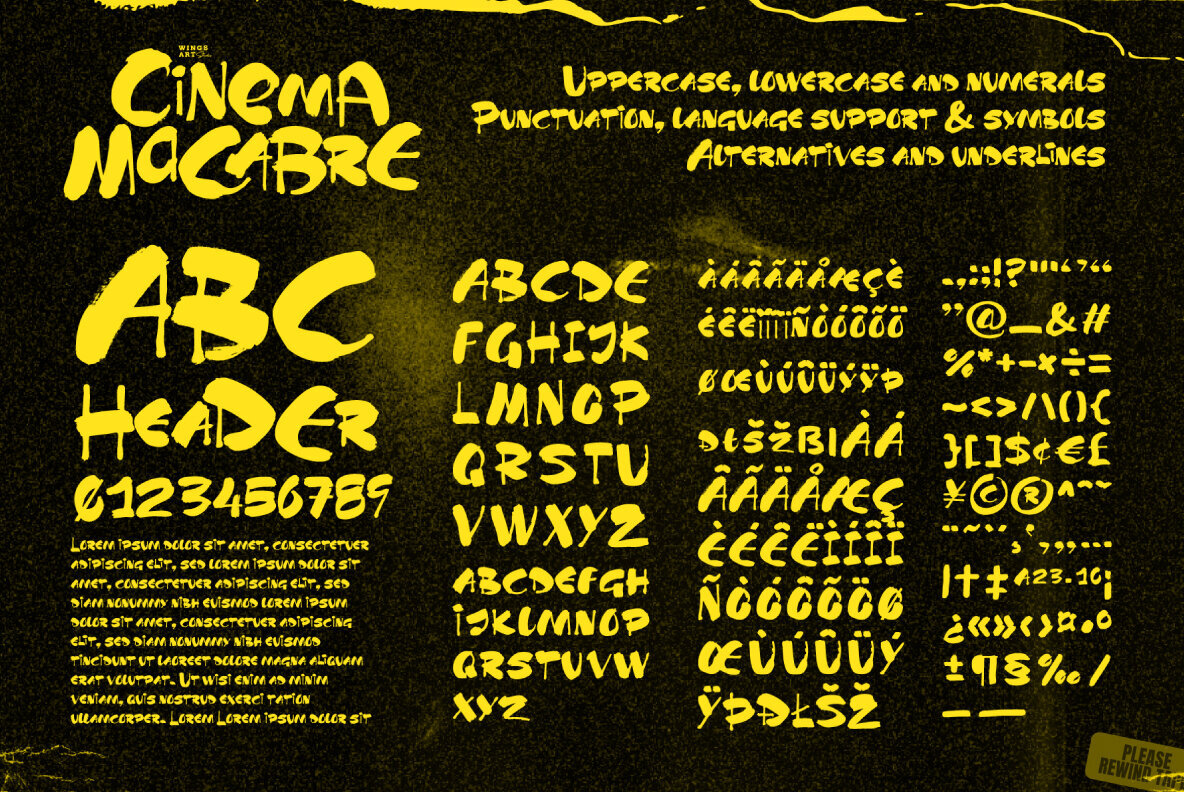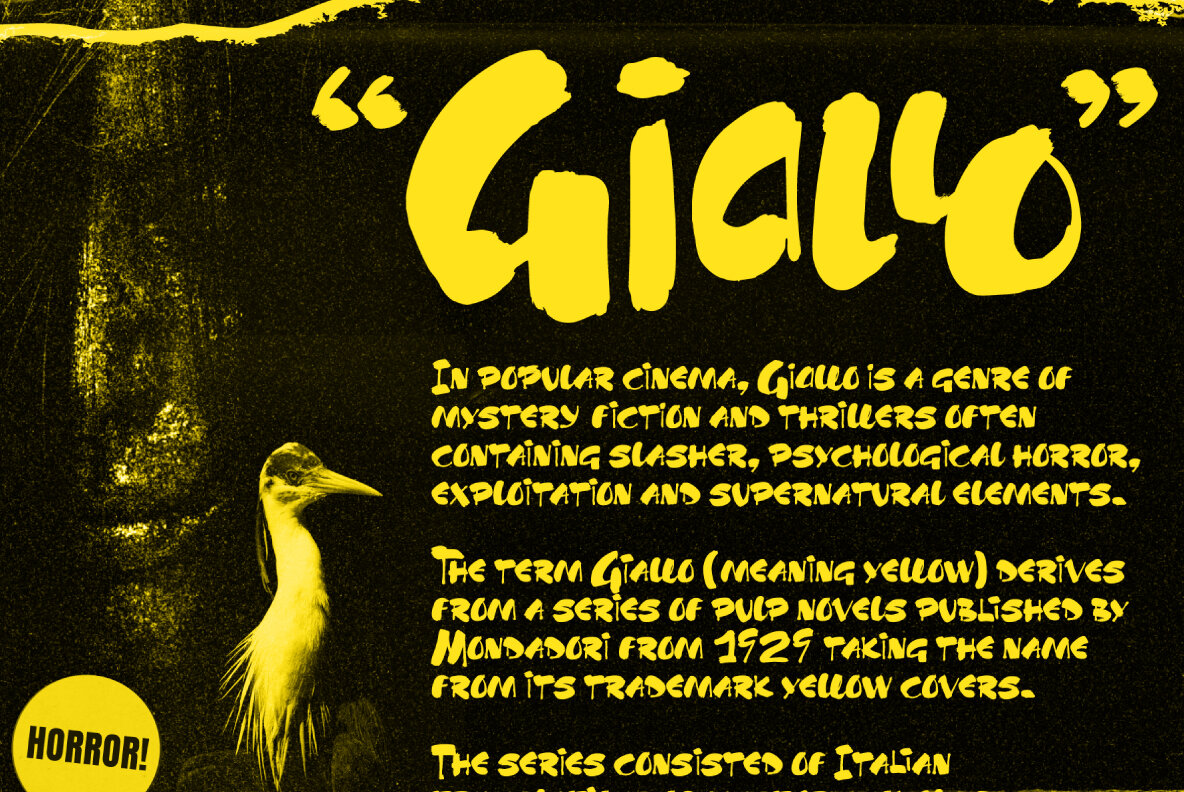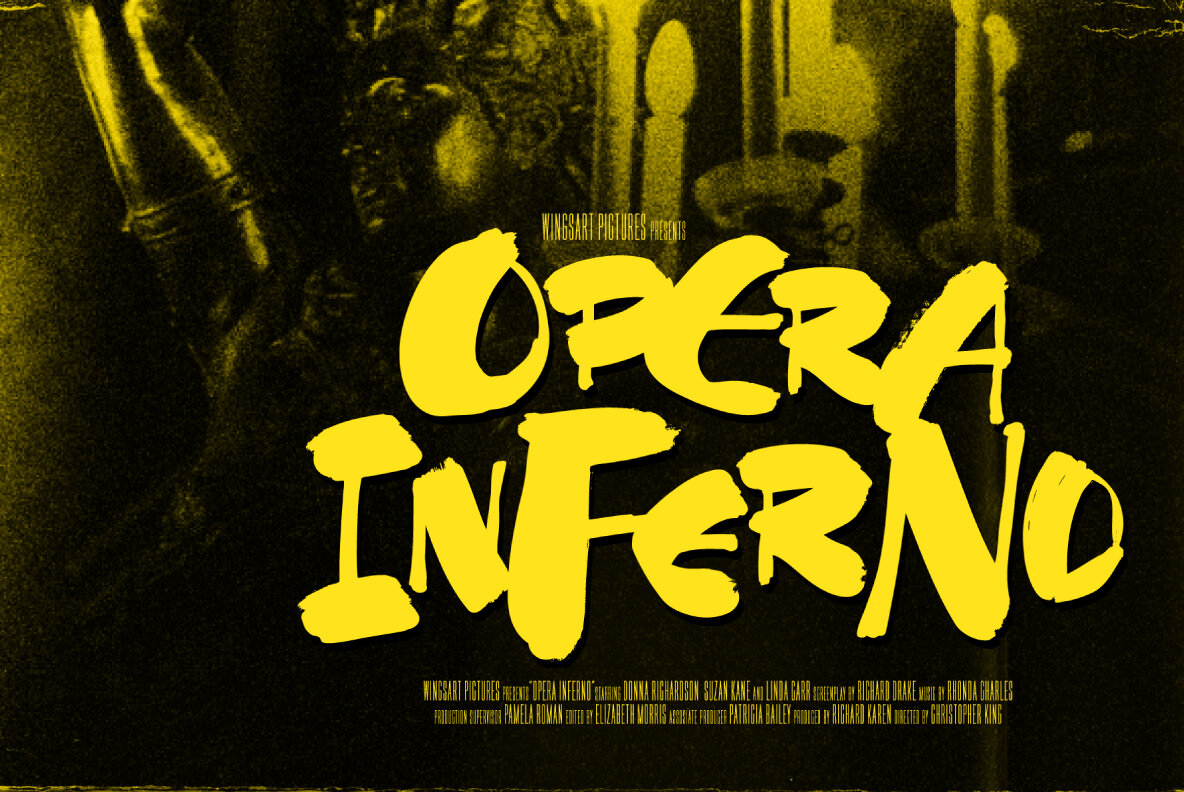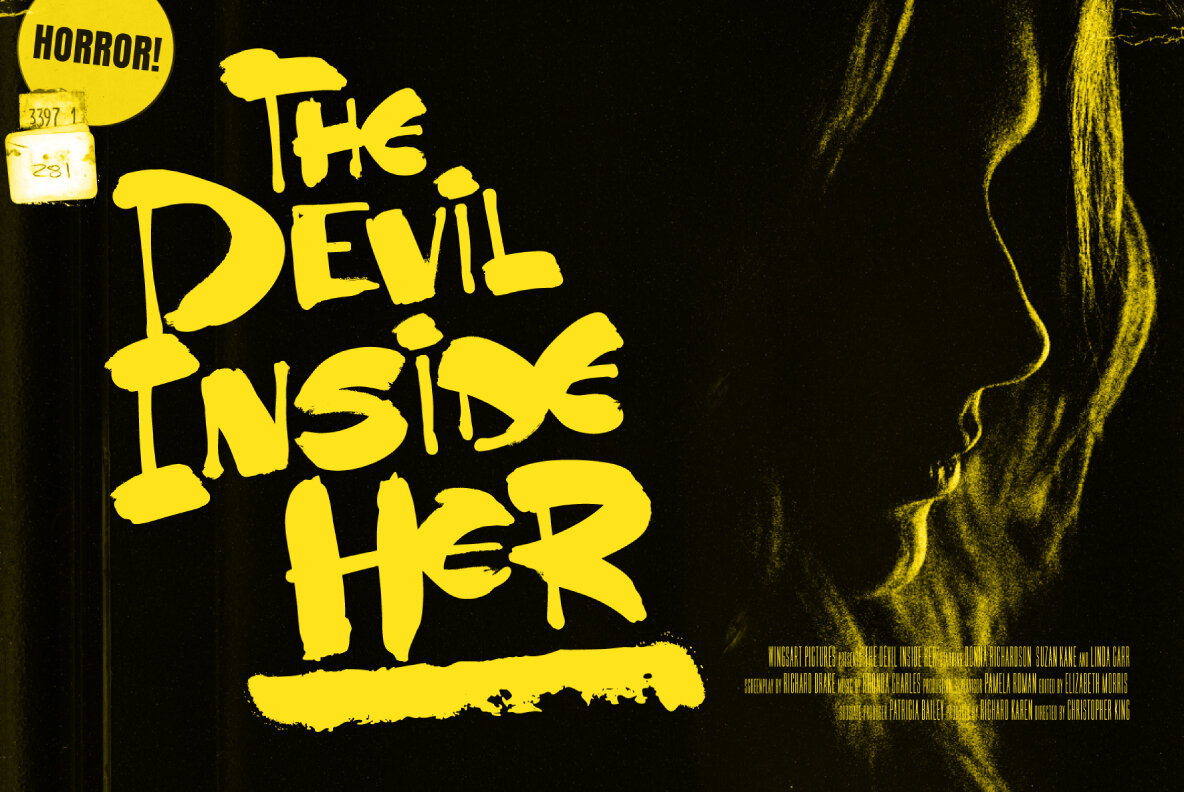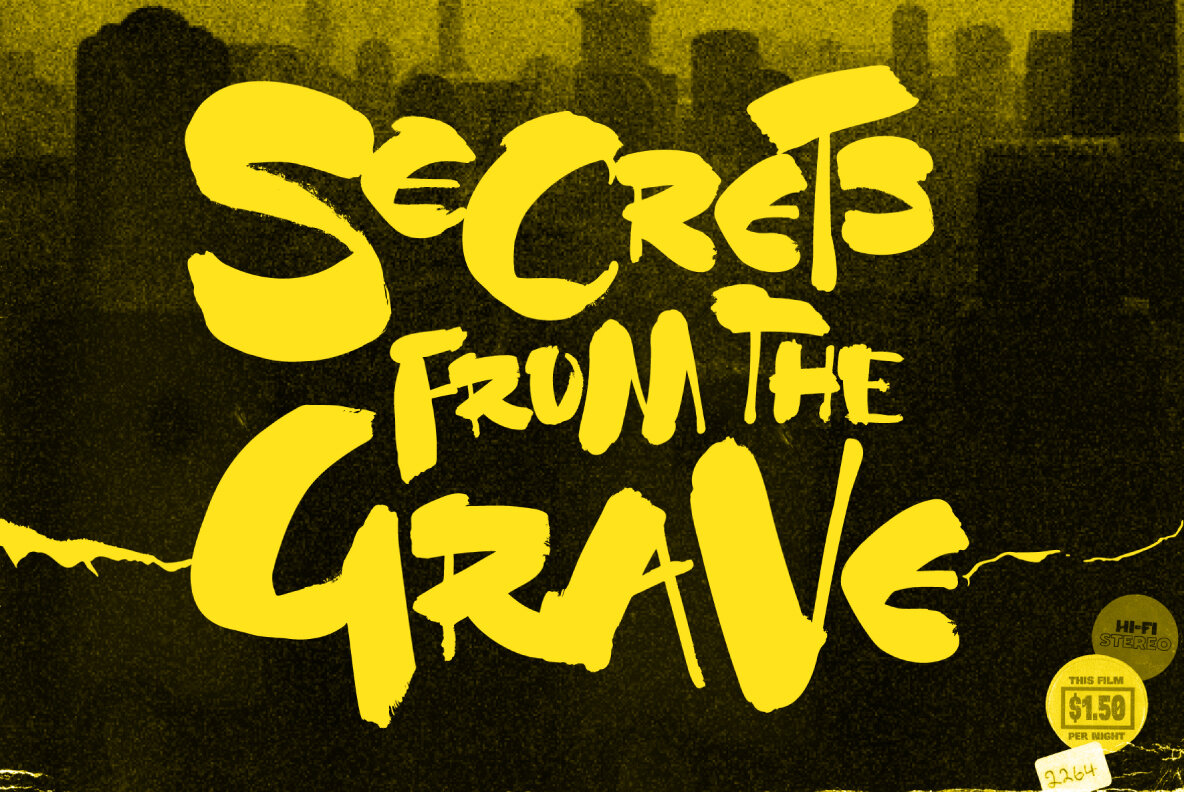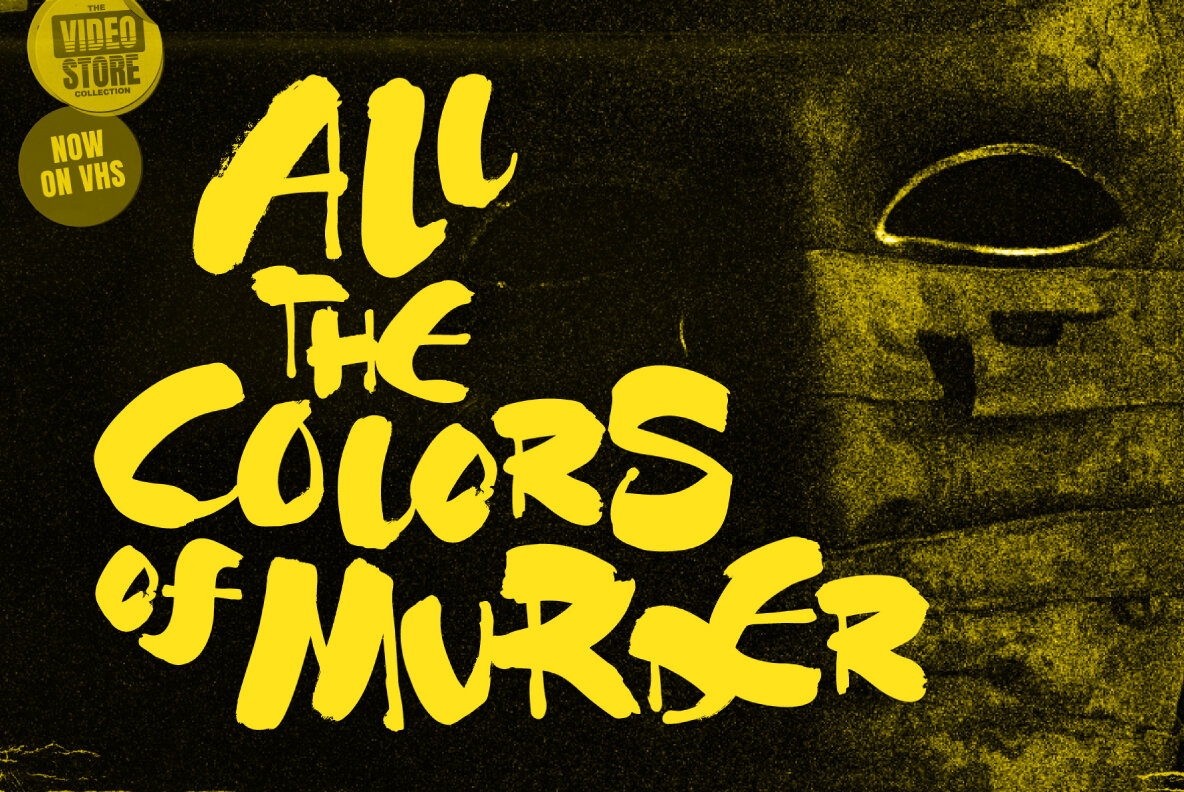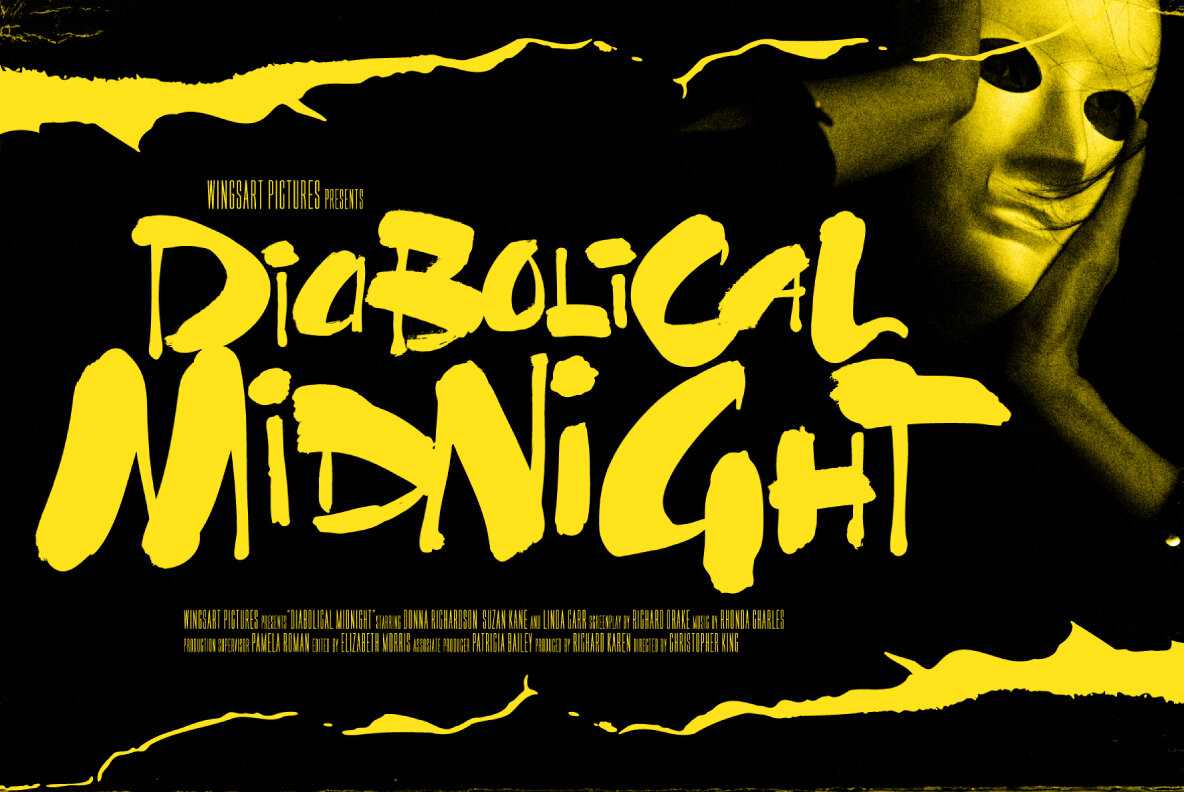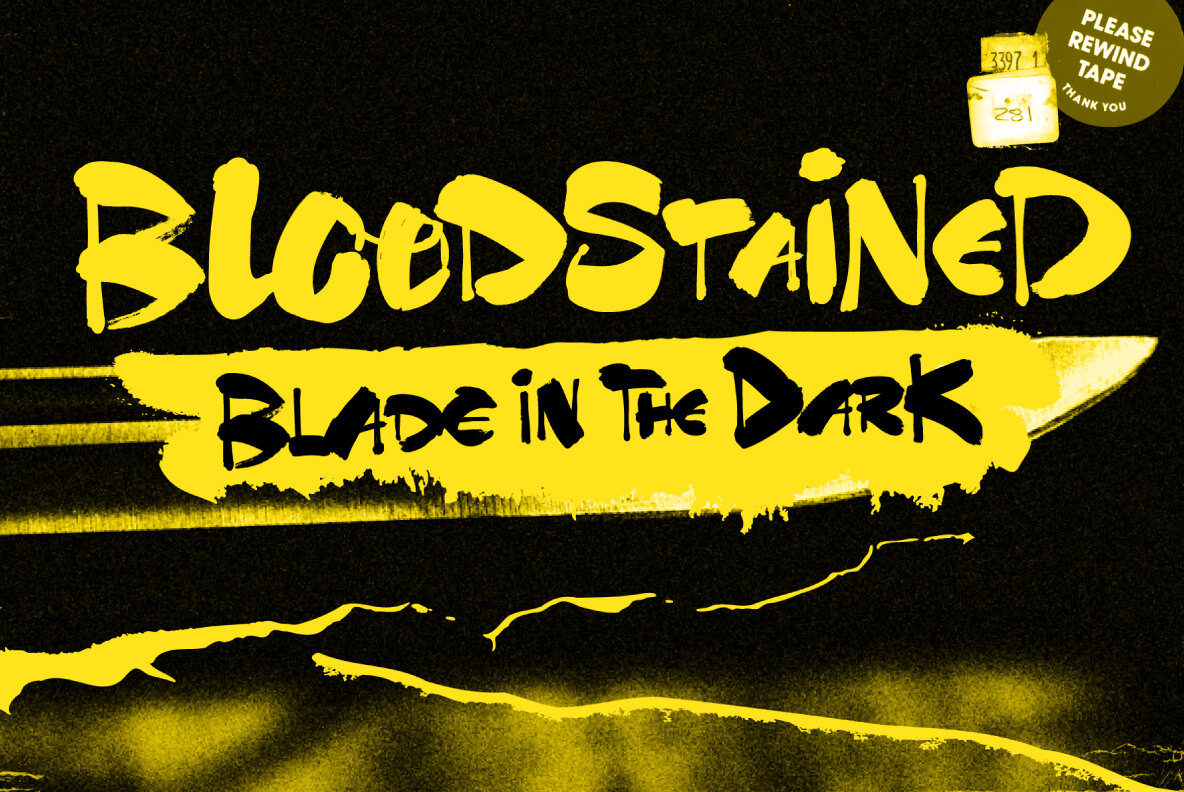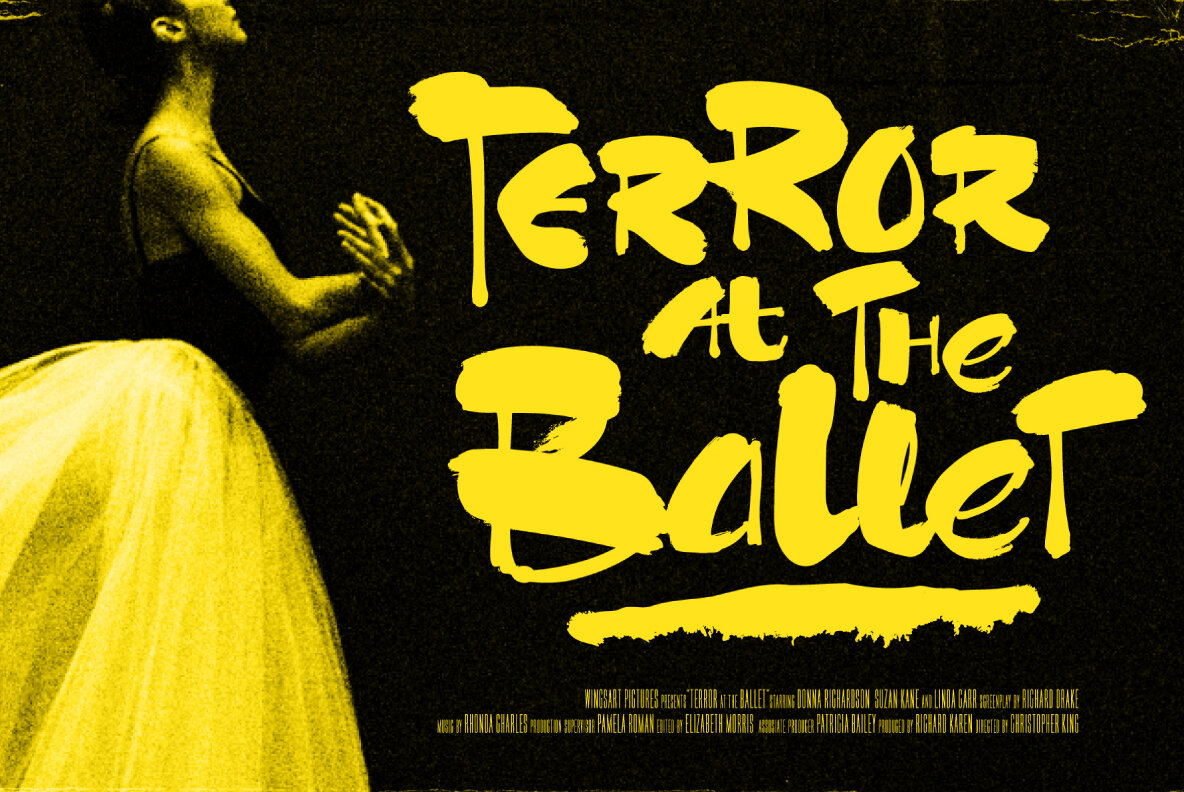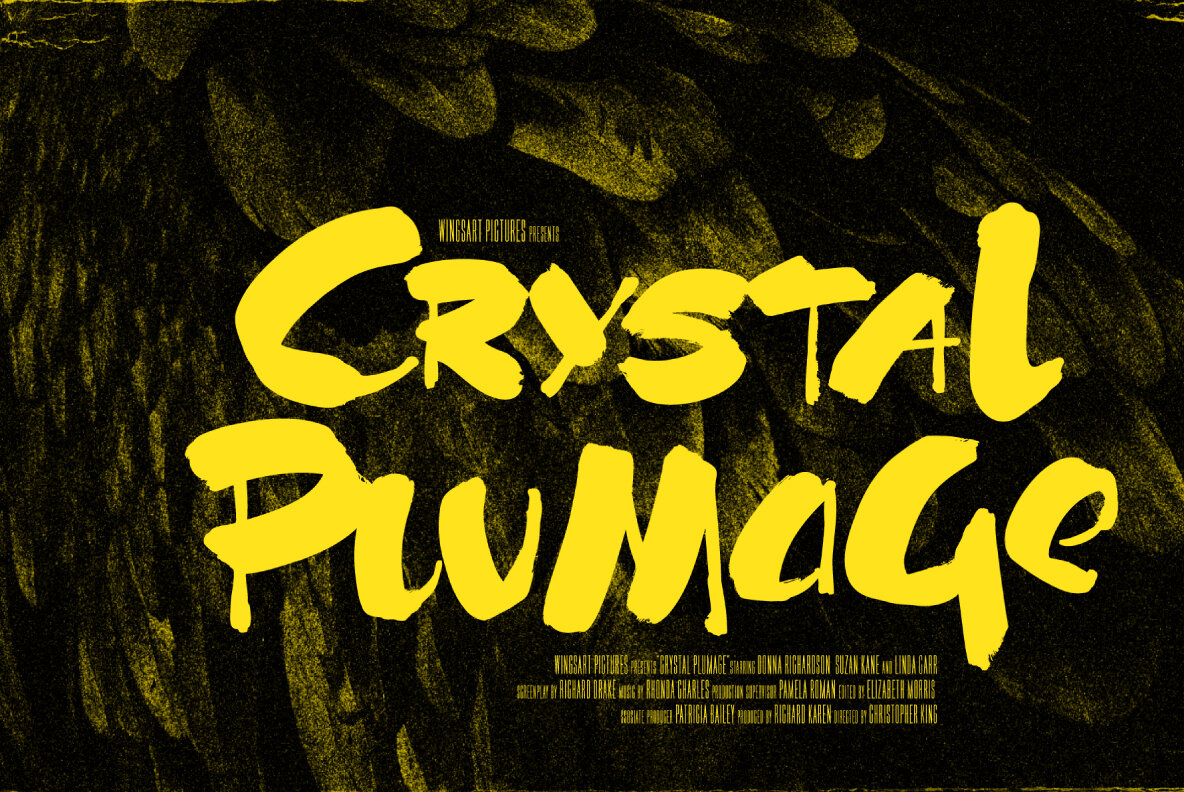
Cinema Macabre Font
Cinema Macabre Regular
Cinema Macabre Alt 01
Cinema Macabre Alt 02
Cinema Macabre Alt 03
Cinema Macabre Alt 04
Cinema Macabre Alt 05
Cinema Macabre Underlines
A Hand-drawn Display Font for Creating the Most Diabolical Horror Titles
This loose and inky brush font takes its inspiration from the classic Giallo film posters of the 1960s to 1980s - a cult cinematic subgenre beloved for its stylish visuals, haunting soundtracks and exploitation led marketing. It's a devilishly drawn design that aims to capture the feeling of vintage horror, preserving analogue details of old print while remaining versatile enough to work across a variety of digital designs.
The Cinema Macabre font family boasts six fonts, each containing a unique set of uppercase and lowercase characters, as well as numerals, punctuation and language support. Add to this a host of custom ligatures, underlines and graphic elements and you have an essential toolbox for creating truly hand-made looking title designs.
Cinema Macabre if a font that rewards experimentation by mixing all the various upper and lowercase alternatives, with interesting combinations waiting to be found and inspire terror across your own movie posters, book covers, albums and editorials. Few other fonts offer the versatility to create such diabolical designs!
Based near Bristol, UK, Christopher King is the designer behind Wingsart Studio, a creative practice specializing in hand-drawn lettering and bespoke typography for film and television. Acting as both a working portfolio and an independent font foundry, Wingsart Studio showcases King’s deep appreciation for mi...